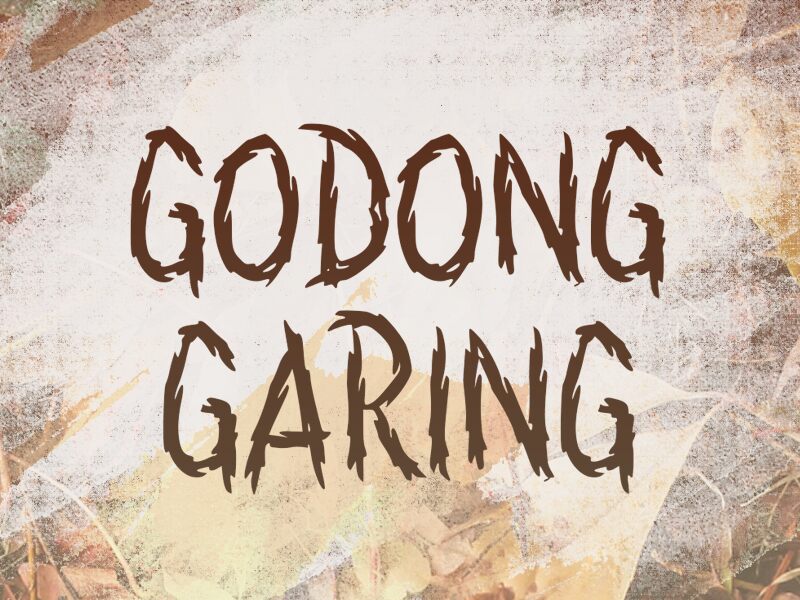
GODONG GARING
Godong Garing, crafted by the innovative wep, stands out as a script font with a twist. Its 'trash' style injects a raw, edgy vibe into the traditional elegance of script fonts, making it an unparalleled choice for projects that aim to break the mold. With its condensed width, it offers readability while ensuring that every word packs a punch.
The unique blend of sophistication and rebellion embedded in Godong Garing makes it perfect for designers looking to push boundaries in everything from bold advertising campaigns to avant-garde fashion branding or eye-catching social media content. Embrace the unruly beauty of Godong Garing and let your creative projects tell stories that captivate and challenge the norm.